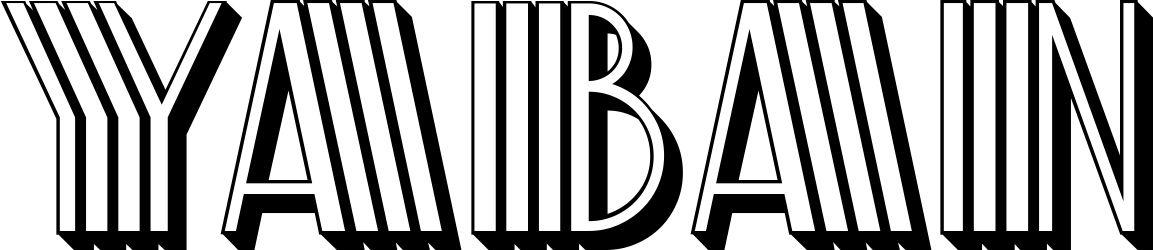
Yaban Font
If you are looking for an extraordinary font to design your text-based layouts, we draw your attention to this linear font. Yaban is available in 2 different styles and permits you to utilize one or both of them at the same time.
Apply it to shopping bags, logos, apps, etc. Just note that this multiline font includes only uppercase letters. Download it right now and enjoy a unique design.